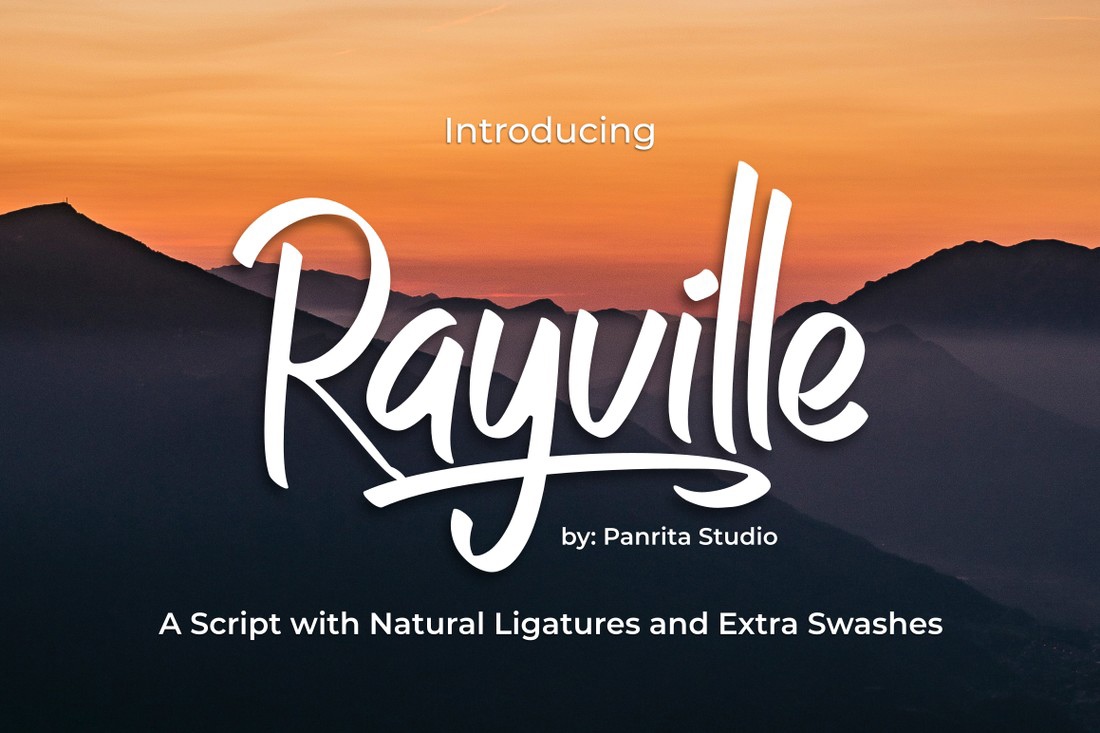
Rayville Font
Rayville Font is perfect for small-town business branding, community event promotions, local bakery signage, neighborhood restaurant menus, hometown festival materials, regional tourism campaigns, family-owned store displays, and friendly service company logos. This charming typeface excels in applications where approachable warmth and community spirit are essential for creating welcoming and trustworthy brand experiences.
What makes Rayville Font truly exciting is its genuine embodiment of small-town American charm and neighborly hospitality that instantly creates feelings of comfort and belonging. The font features friendly, approachable letterforms with gentle curves and welcoming proportions that reflect the warmth of close-knit communities. Its authentic character and down-to-earth personality create an immediate sense of trust and familiarity that resonates with audiences seeking genuine, personal connections. The typeface's honest simplicity and unpretentious elegance make it perfect for brands wanting to convey reliability, community values, and authentic local character.
The Rayville Font family includes regular and bold weights, complemented by casual alternates and decorative elements inspired by small-town signage traditions. The font offers comprehensive character sets with friendly ligatures and contextual variations that enhance its approachable appearance. Additional ornamental elements including stars, flourishes, and community-inspired motifs provide designers with tools for creating cohesive local brand systems rooted in American hometown values.
For designers seeking a warm and authentic community-focused typeface, Rayville Font Free Download represents a perfect choice that brings hometown charm to contemporary brand communications. Whether you're creating identities for local businesses, designing materials for community organizations, or developing marketing campaigns for regional services, this font delivers the genuine warmth that connects with audiences on a personal level. Its friendly character and community appeal make it particularly effective for brands in hospitality, retail, and service industries targeting local demographics. The font's ability to convey trust, familiarity, and community pride makes it an invaluable asset for creating brand communications that celebrate local culture, neighborly values, and the enduring strength of small-town American communities.